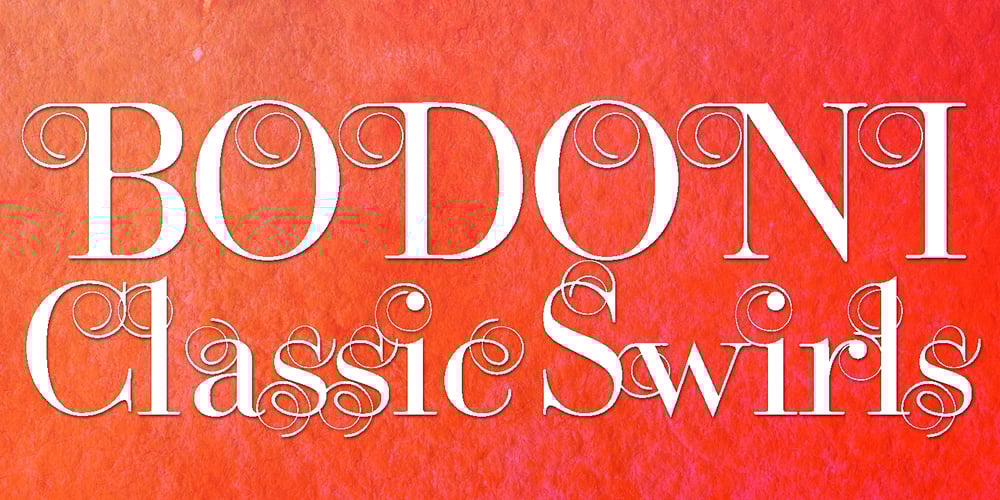
Bodoni Classic Swirls Font Family was designed by Gert Wiescher and published by Wiescher Design. Bodoni Classic Swirls contains 1 styles and family package options. Bodoni Classic Swirls breaks all the rules. The idea of Bodoni typefaces is no embellishments and here I go again and do another decorated set of Bodonis. But I find this is another very nice and useful typeface for all kinds of cards and certificates. Enjoy! Yours, again breaking the rules, Gert Wiescher